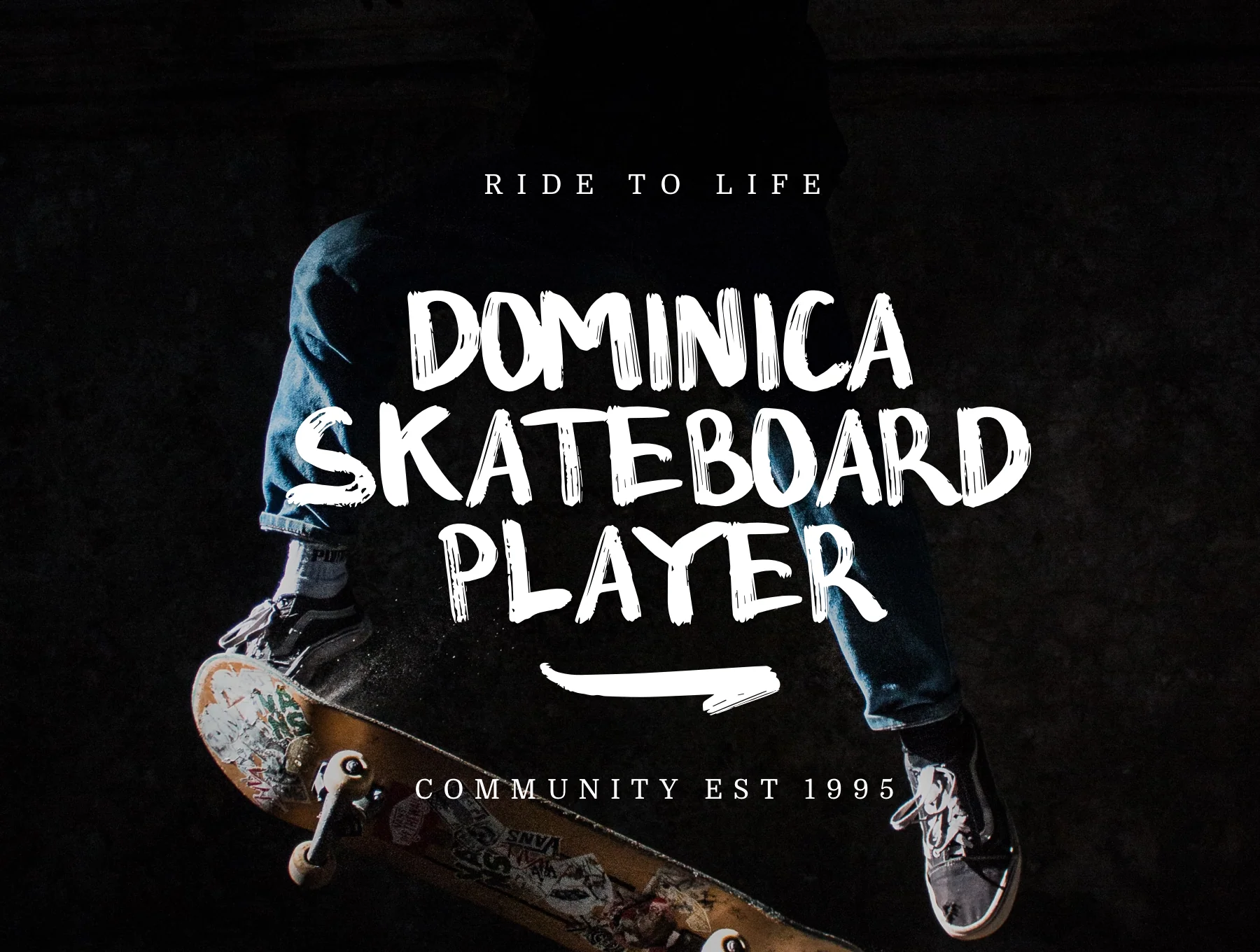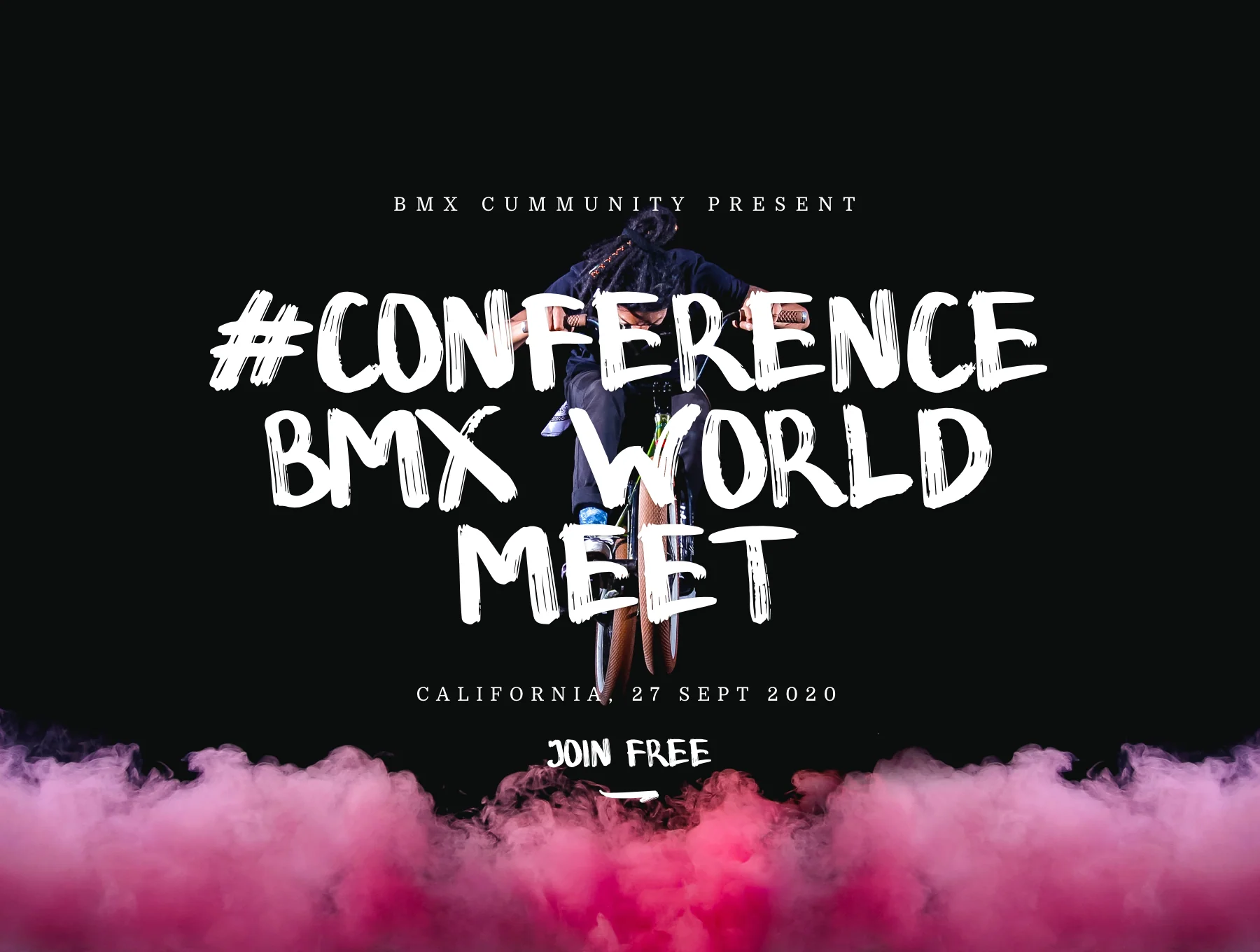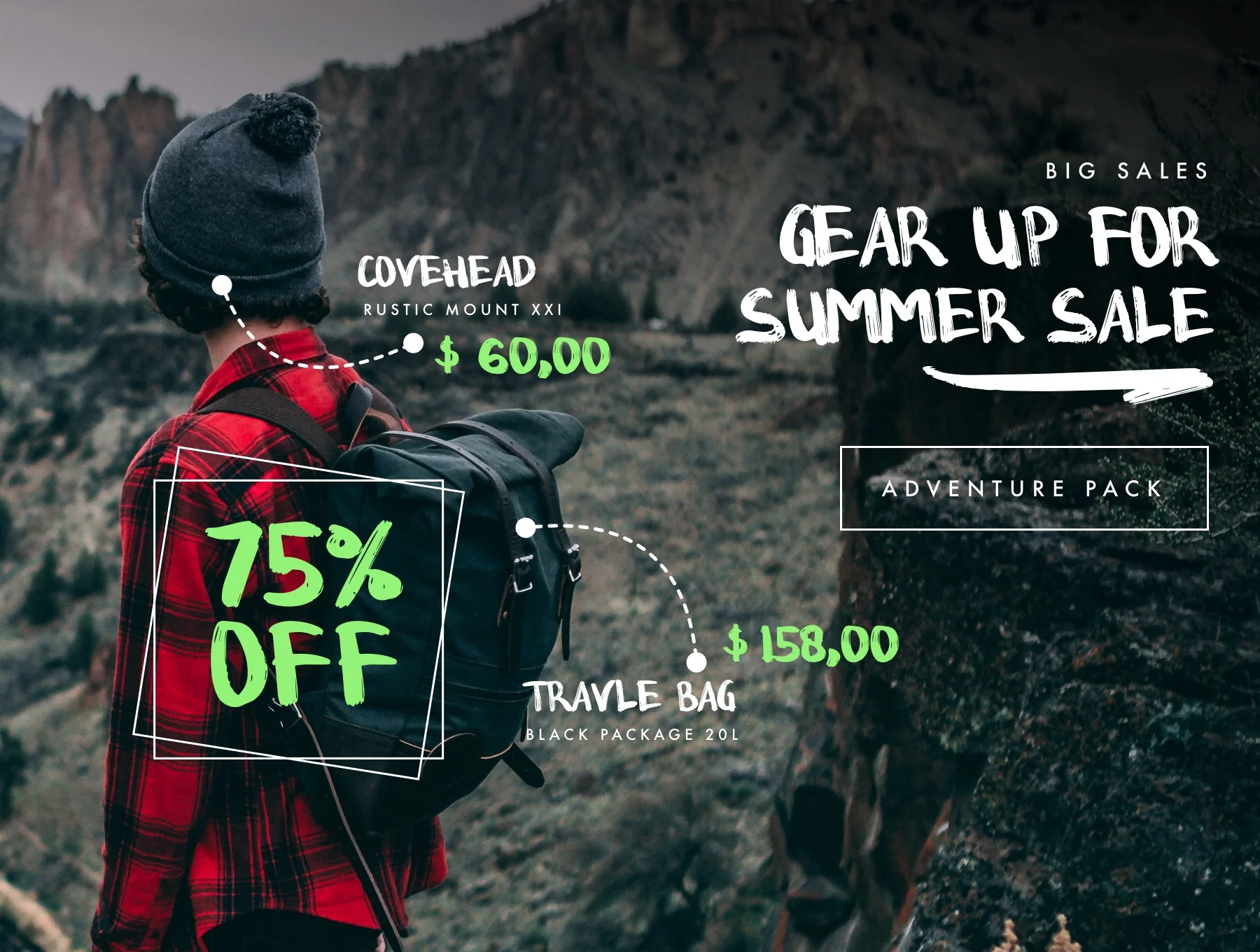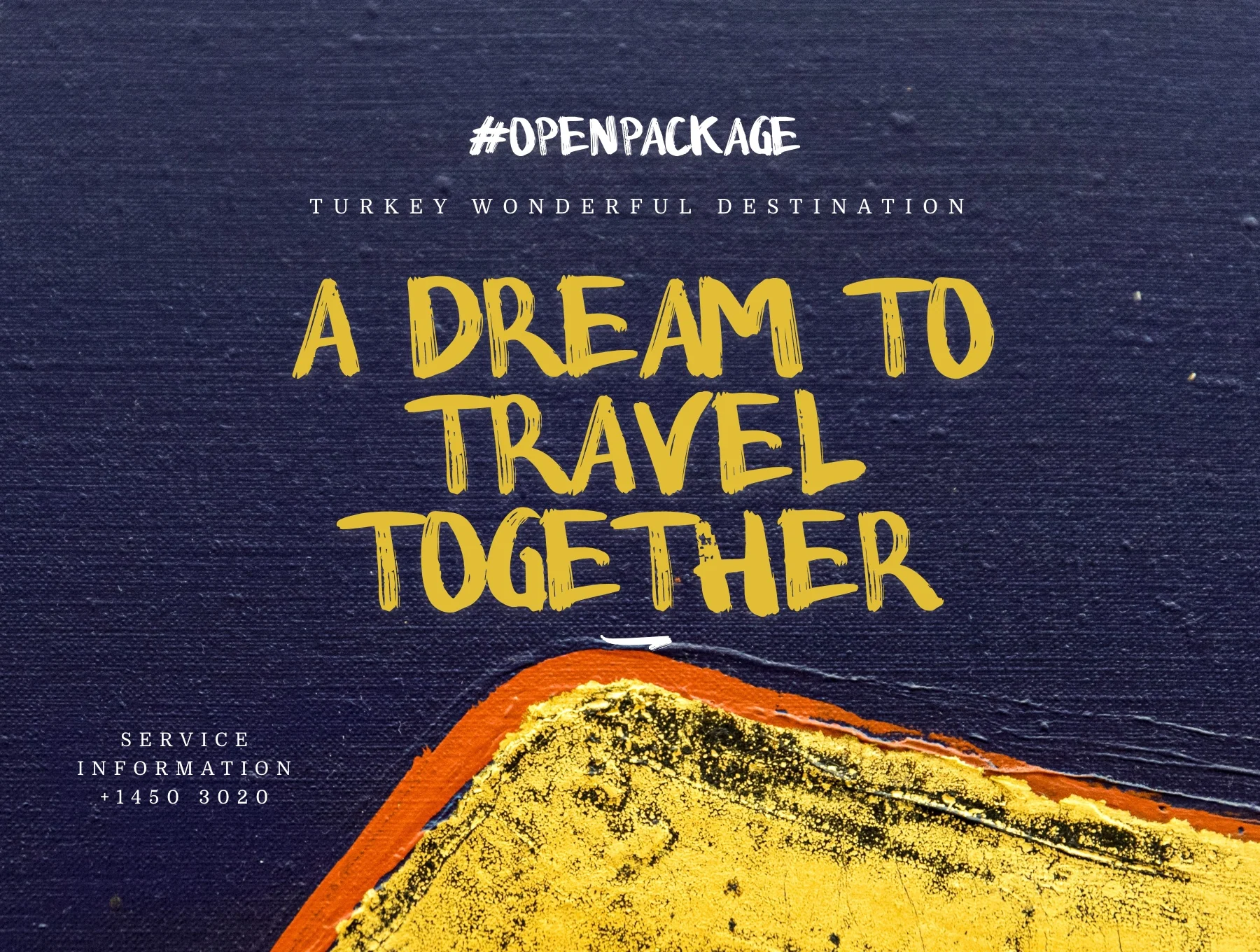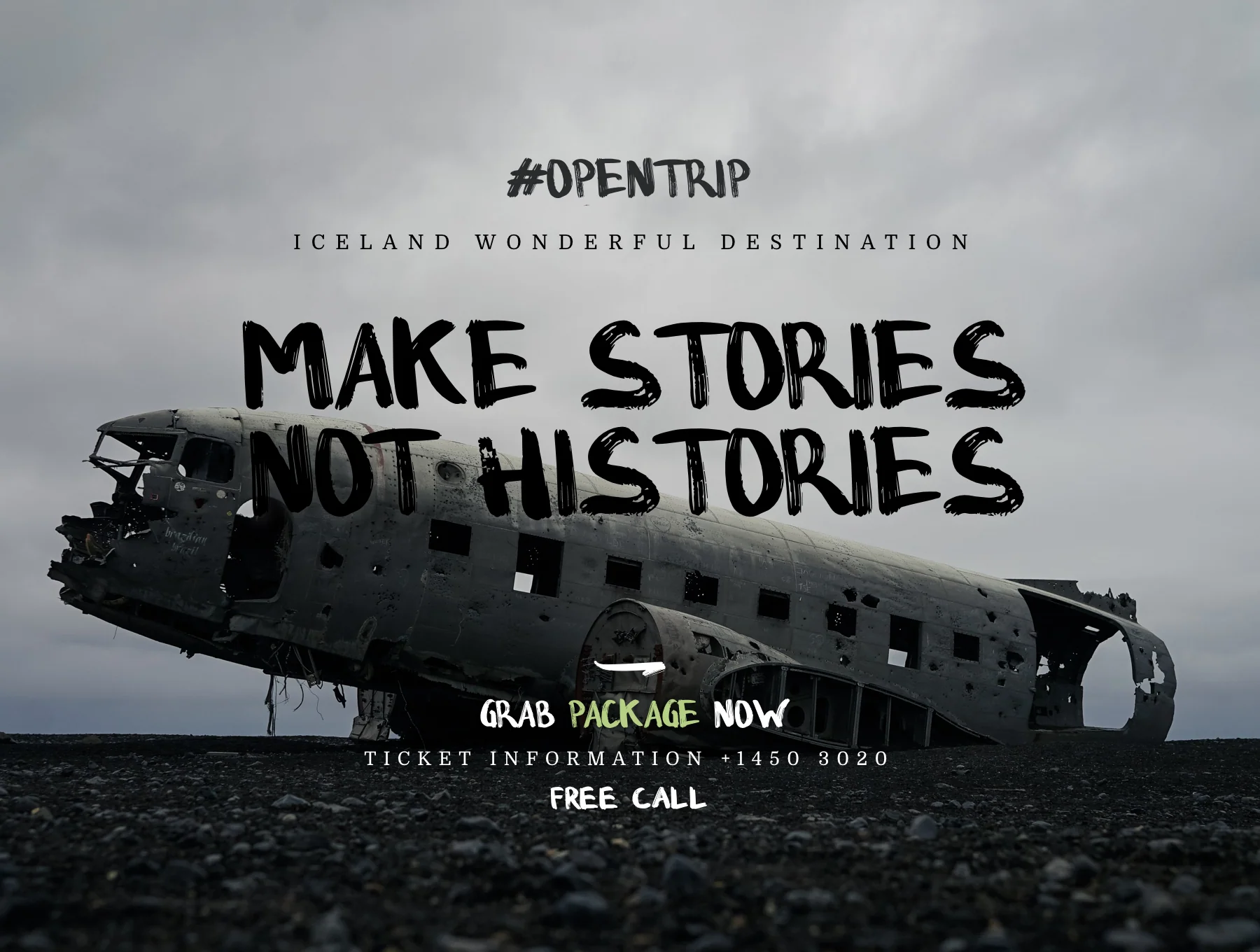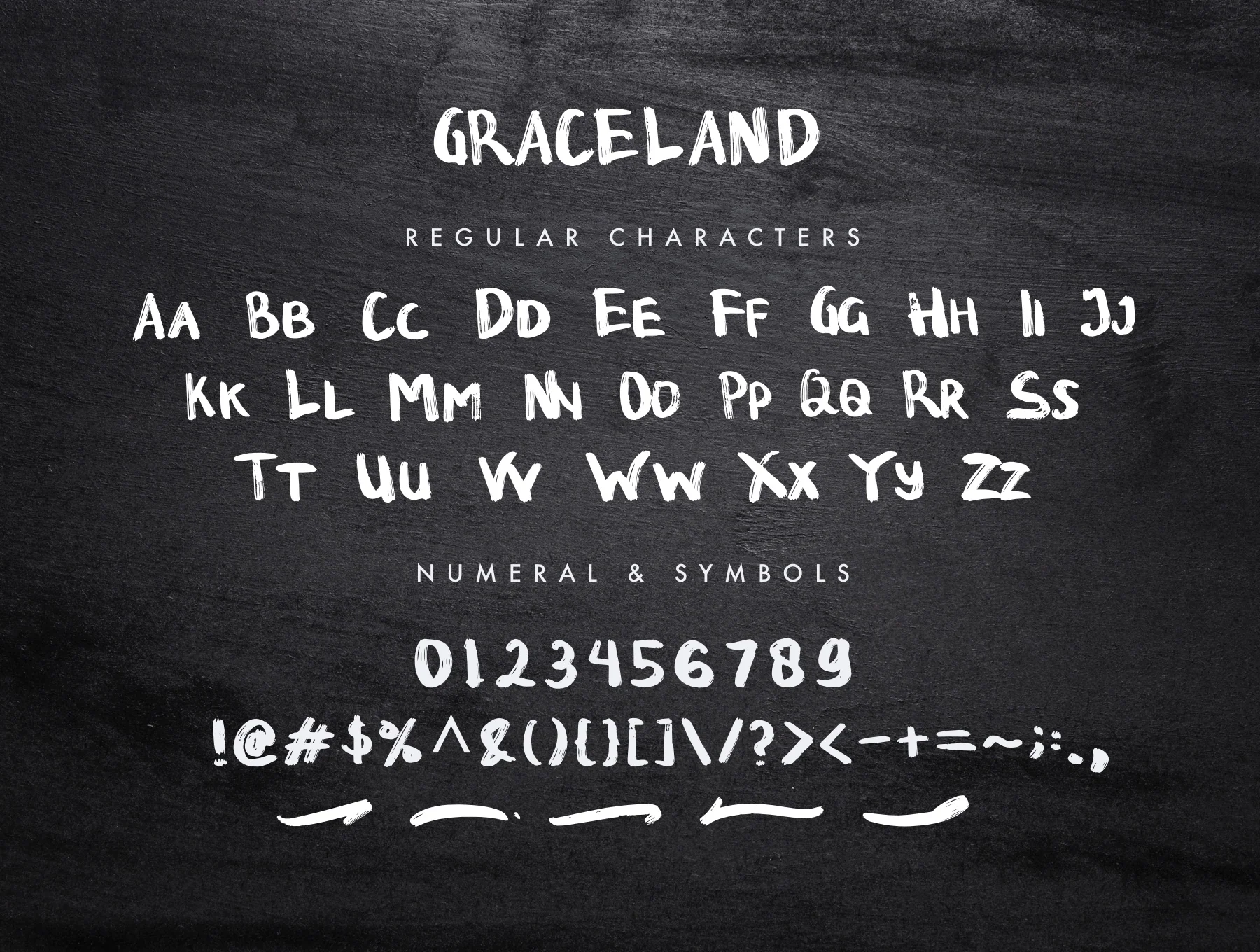
GRACELAND - Outdoor Brush Font
Outdoor adventure handbrush font with bold character and a distinctive personality
Adventure-ready outdoor look
Street-inspired urban aesthetic
Distinctive original design
Graceland is a lively hand-brushed font that adds standout character to many creative projects, from branding and headlines to wedding stationery, invitations, signatures, logos, labels, and more.